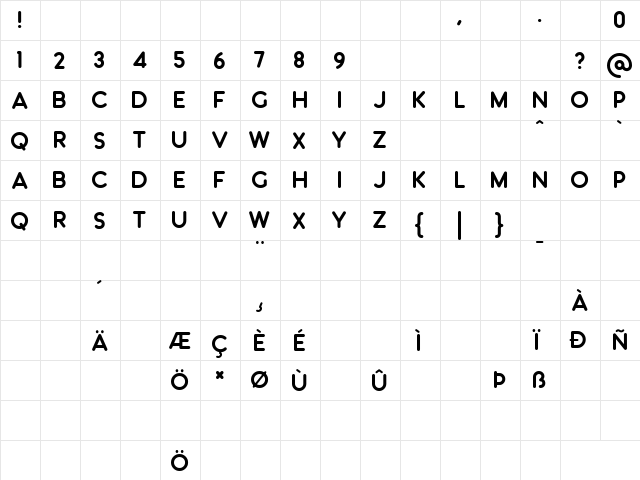
Kڮigsberg Regular Font Preview
Kڮigsberg Regular
Kڮigsberg Regular Font Details
Design Context for Kڮigsberg Typeface
Kڮigsberg takes a measured approach to typography — its balanced proportions and neutral character make it a reliable workhorse for both digital and print work.